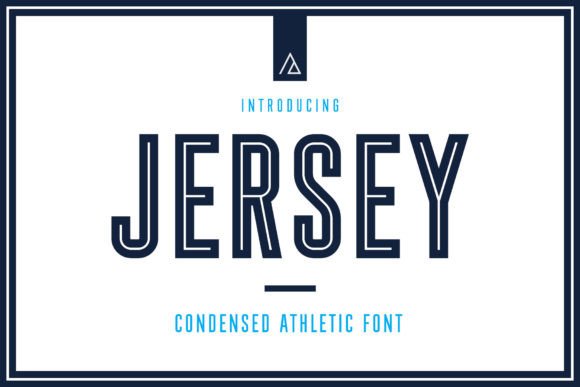
Introducing Jersey Font, the ultimate choice for all your industrial design needs. This condensed sans-serif typeface, created by the talented Aurora Graphics, draws inspiration from the dynamic world of college sports and football jerseys. With its bold and impactful style, Jersey Font is set to revolutionize your creative projects.
Designed specifically for titles and headlines, Jersey Font offers both outline and regular solid fill versions, giving you the flexibility to experiment and create captivating designs. Its uppercase and lowercase letters, numbers, symbols, and extensive European language support make it the perfect choice for any project requiring a touch of professionalism and elegance.
When you choose Jersey Font, you're not just getting a font; you're unlocking a world of creativity and limitless possibilities. Its captivating style will capture the attention of your audience, leaving a lasting impression. Whether you're designing a logo, creating eye-catching social media graphics, or crafting impactful banners, Jersey Font is the ideal companion to elevate your designs and make them stand out from the crowd.
Embrace the power of Jersey Font and watch as your designs transform into captivating works of art. Its dynamic and energetic vibe will evoke emotions, engaging your audience on a deeper level. With Jersey Font, your creations will exude confidence, professionalism, and a touch of edginess.
Don't settle for ordinary fonts when you can have extraordinary. Jersey Font is the epitome of boldness and style, ensuring that your designs leave a lasting impact. Stand out from the competition, attract more customers, and elevate your brand with this remarkable typeface.